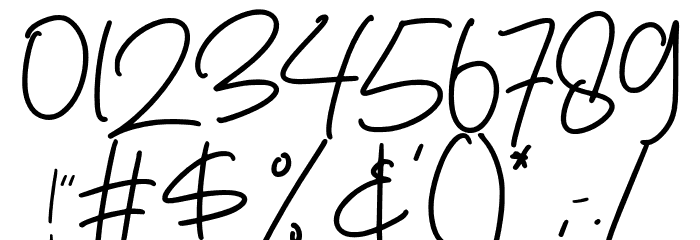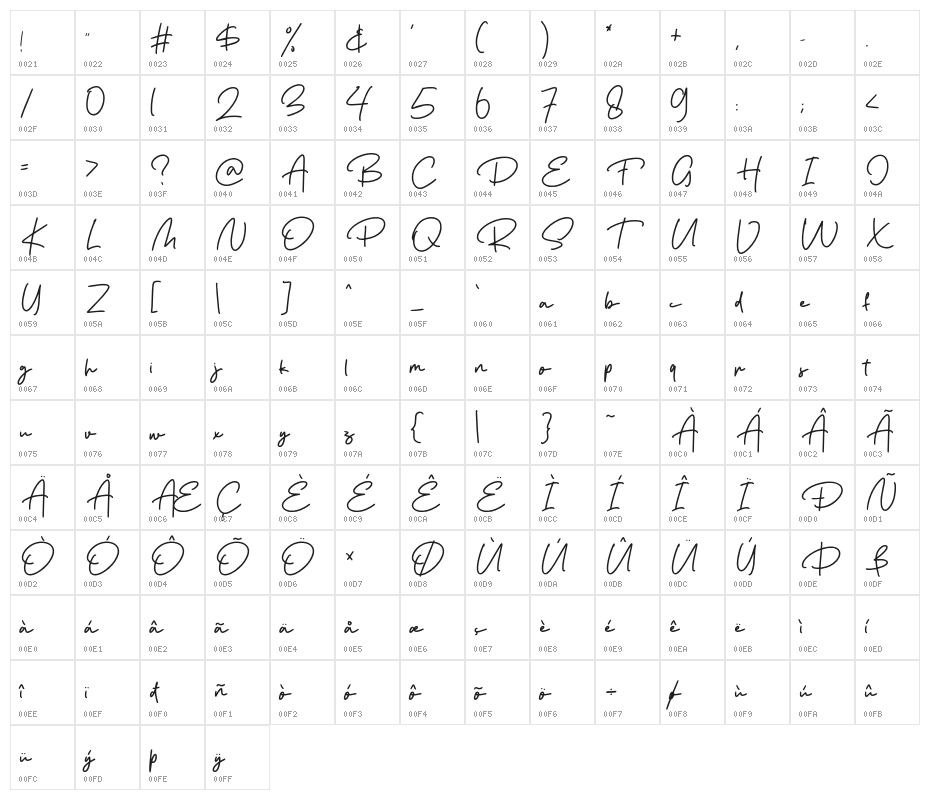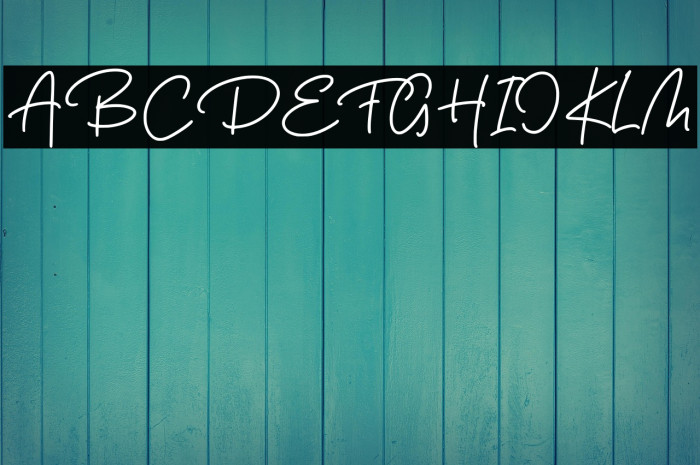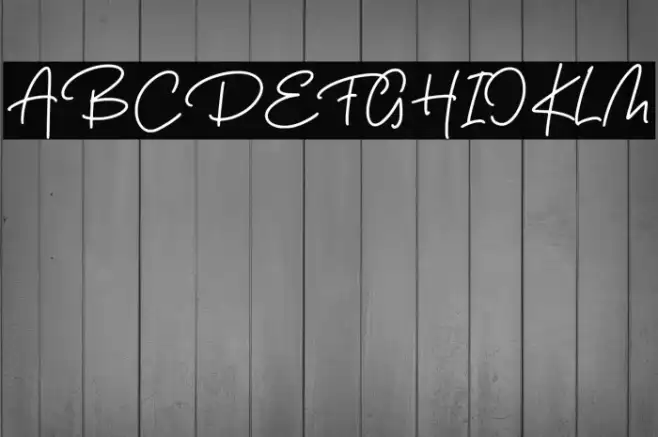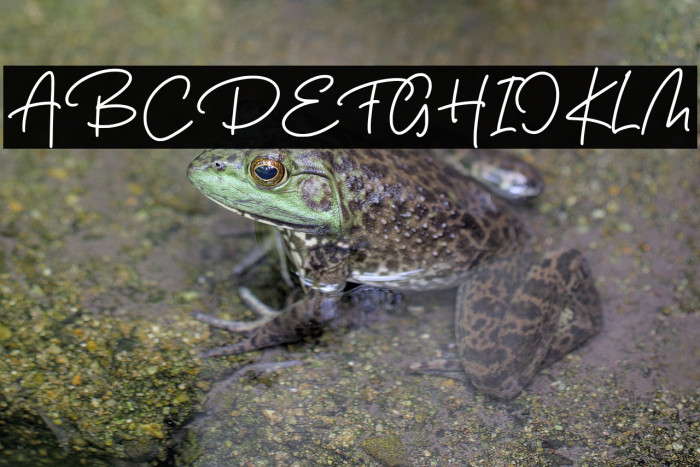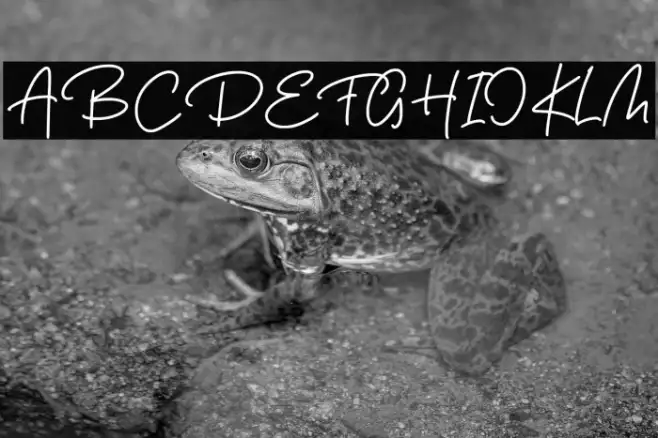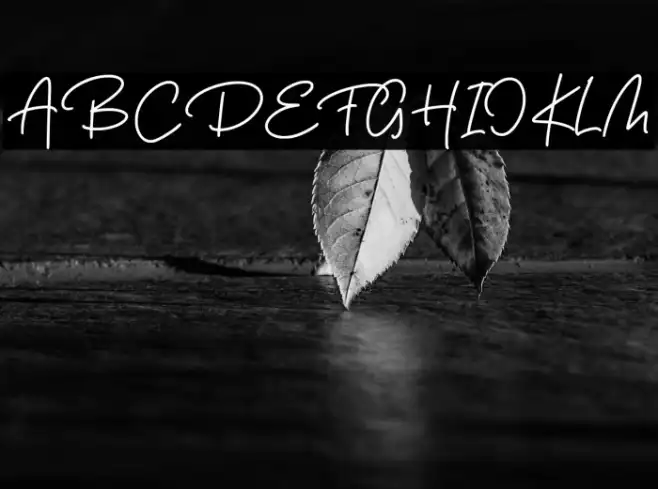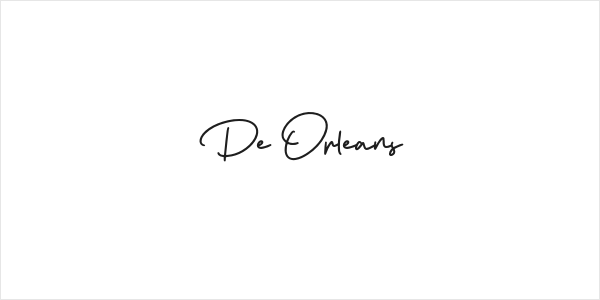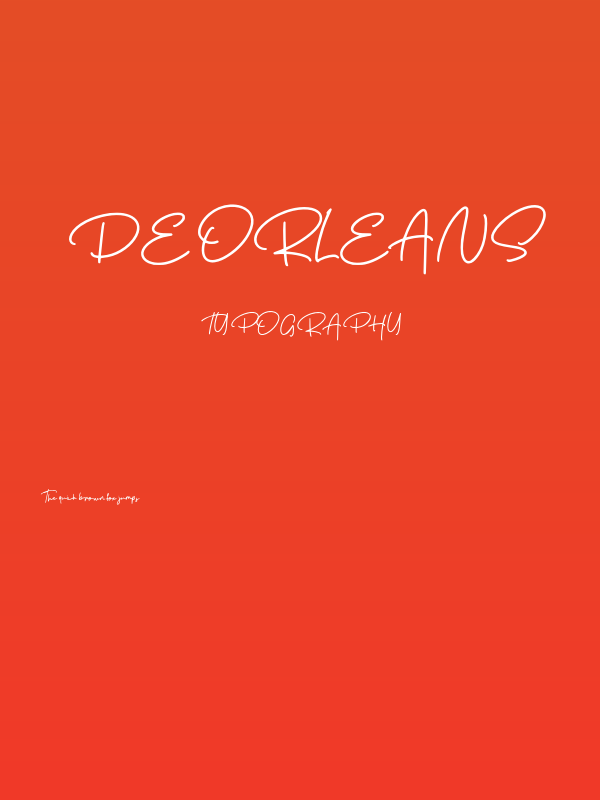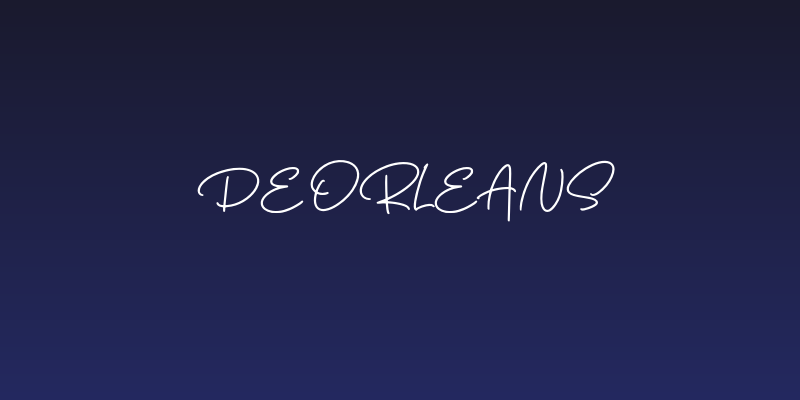
De Orleans Font
De Orleans Description
This font exhibits a lively and dynamic handwritten style, characterized by its fluid and continuous strokes. The uppercase letters are tall and slightly slanted, giving a sense of movement and elegance. The lowercase letters maintain a consistent flow, with some letters featuring loops and curves that enhance the handwritten feel. The numerals are rounded and maintain the same energetic style, making them easily readable. Special characters are crafted with the same attention to detail, ensuring they blend seamlessly with the rest of the typeface. Overall, this font exudes a casual yet sophisticated charm, making it suitable for a variety of creative applications.